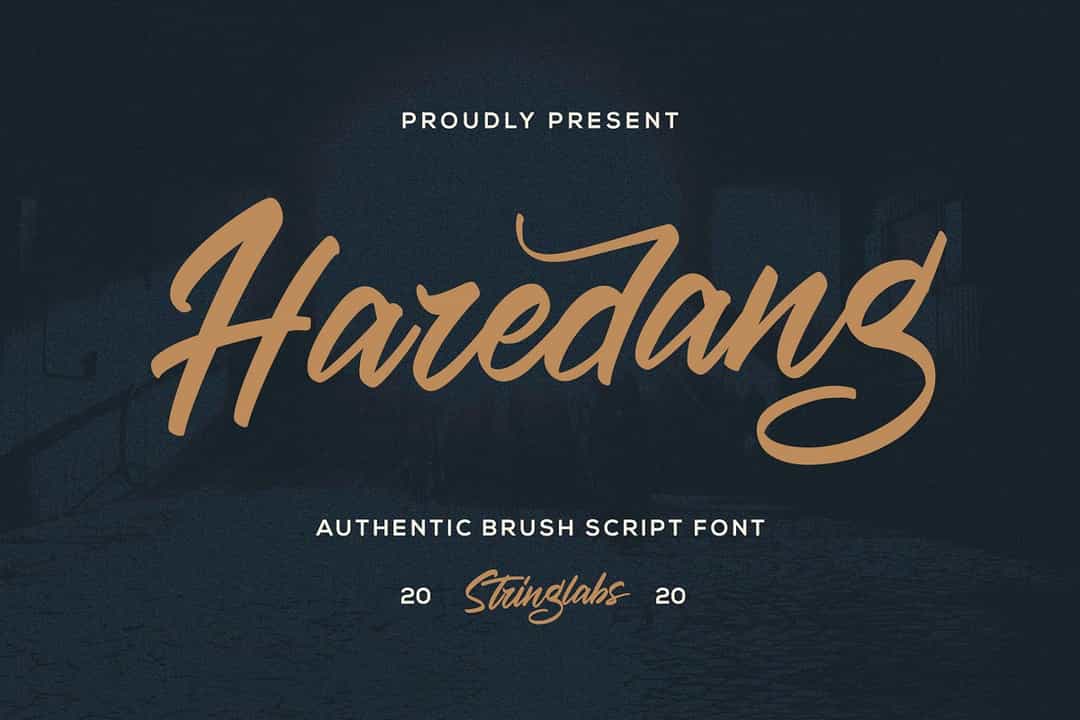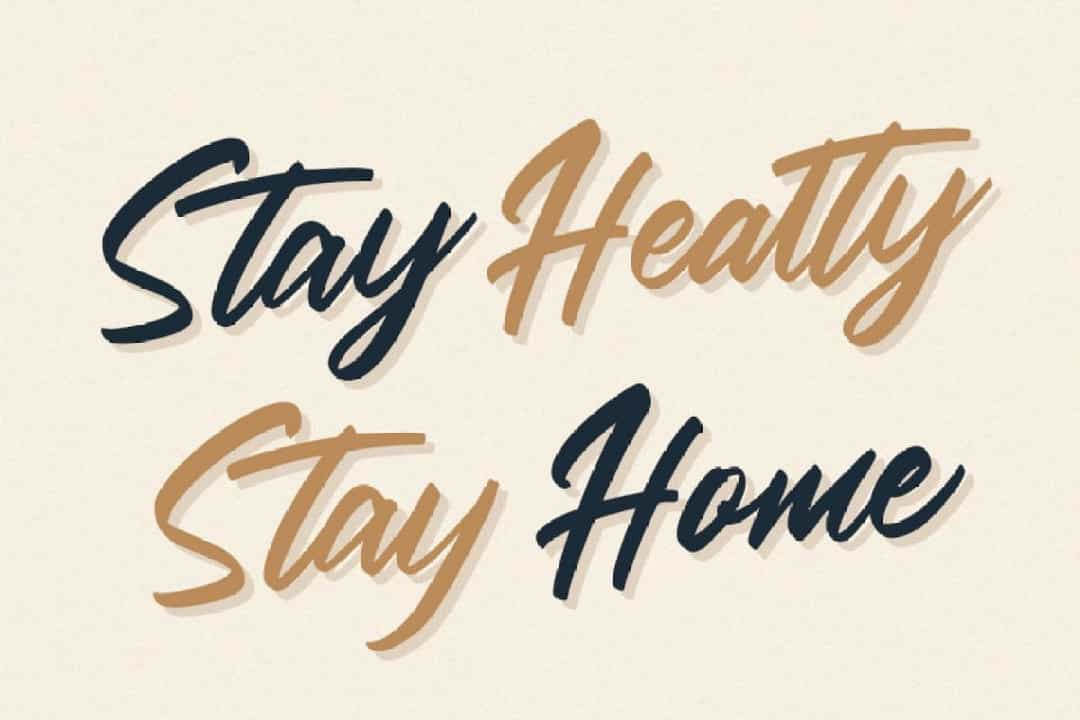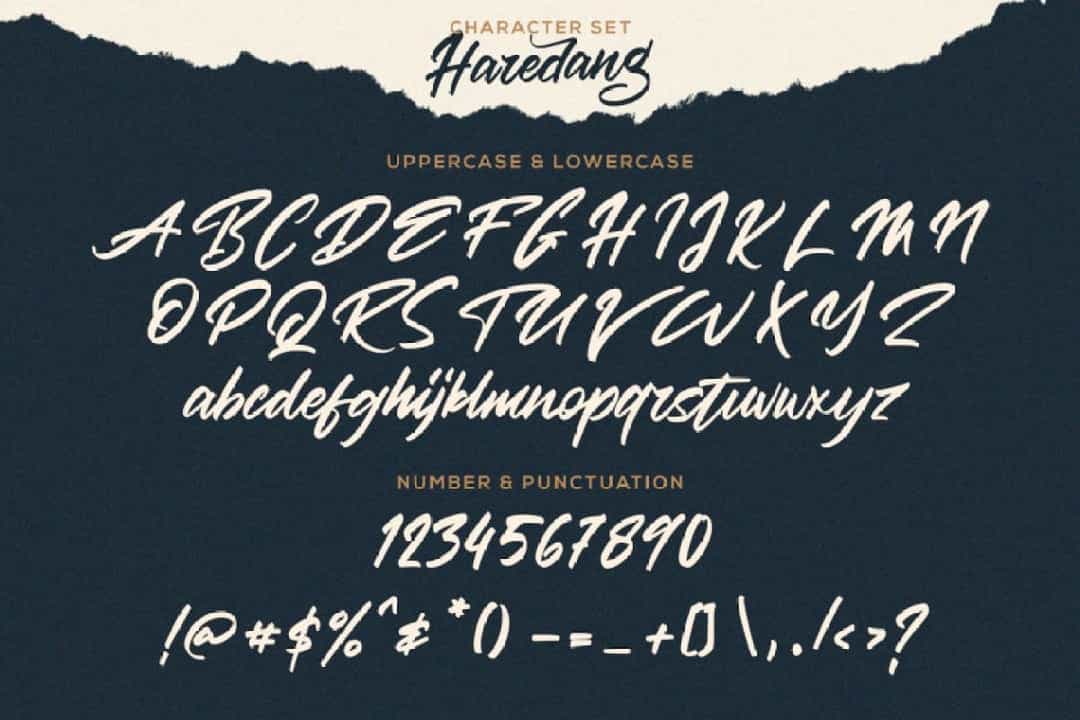
Haredang is a natural handwritten script font that is ideal for anyone needing a typeface to use to use for headlines, logotypes invitations, apparel packaging, branding and advertising etc. This typeface is available in lowercase and uppercase punctuation, symbols and numerals, stylistic sets alternate, ligatures, etc.